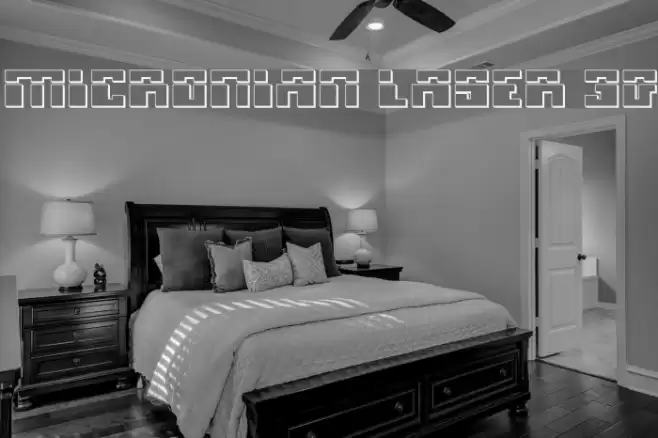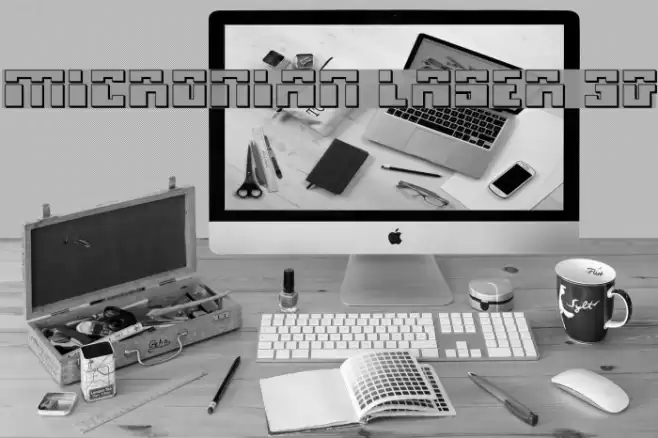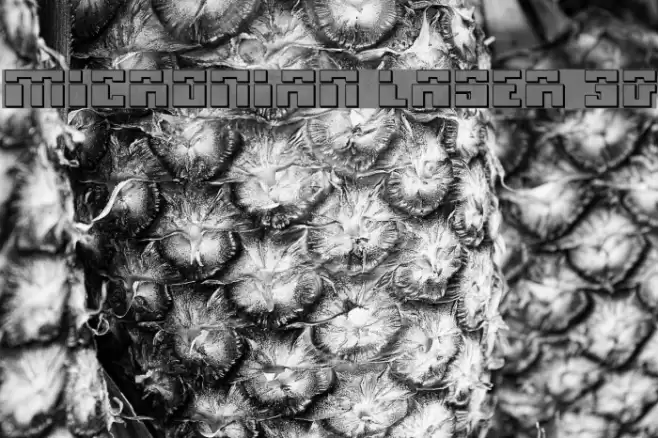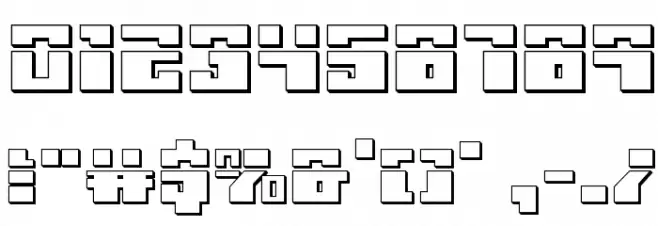
Micronian Laser 3D Font
Micronian Laser 3D Description
This font features a futuristic, geometric design with a three-dimensional effect. Each character is constructed with bold, angular lines and a hollow interior, giving it a distinct, tech-inspired appearance. The uppercase and lowercase letters maintain a consistent style, with sharp edges and a blocky structure. Numbers and special characters follow the same design principles, ensuring uniformity across the typeface. The overall look is reminiscent of digital or sci-fi themes, making it ideal for projects that require a modern and innovative touch.
A futuristic, geometric font with a 3D effect and bold, angular lines from Uncategorized fonts.
- Proposed Projects: Ideal for tech-related branding, sci-fi movie posters, video game titles, and digital art projects.